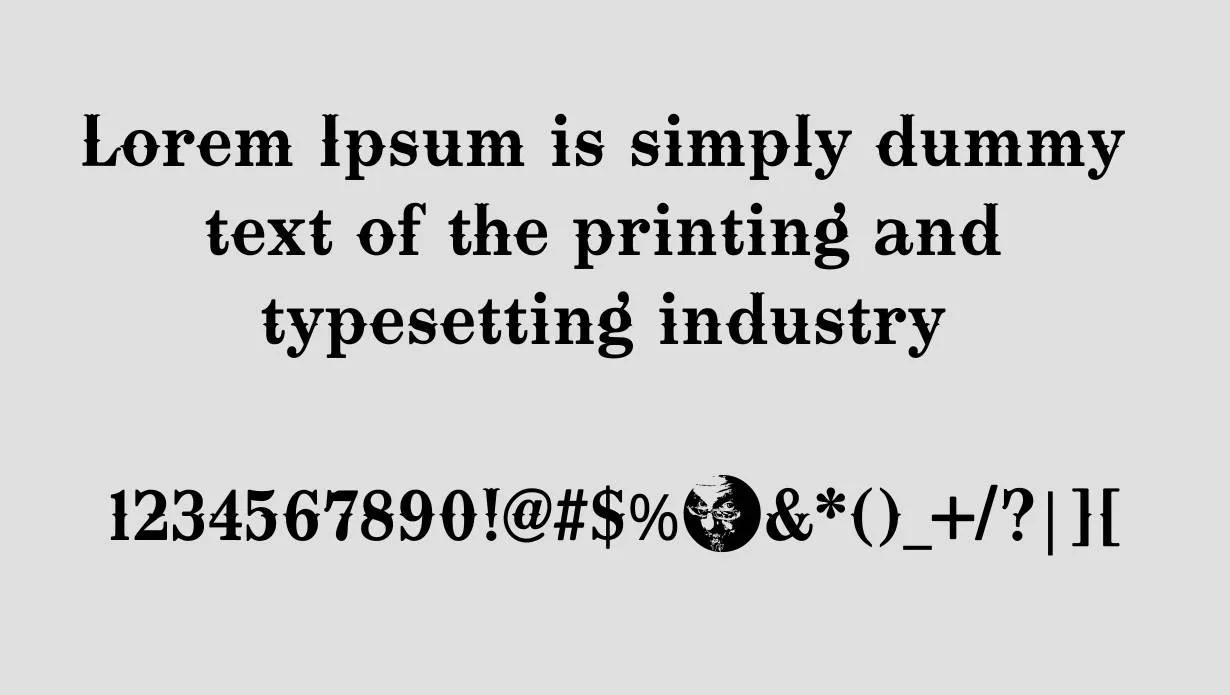
Oklahoma font is the amiable companion, engaging in a friendly chat with your words. Whether you’re writing casual invitations or composing blog posts, it’s the font that ensures your message is approachable and easy to read.
With its comfortably medium weight and neutrally proportioned width, Oklahoma turns your text into a warm conversation, like a neighbor sharing stories over a cup of tea.
| Name | Oklahoma Font |
| Designer | Creatype Studio |